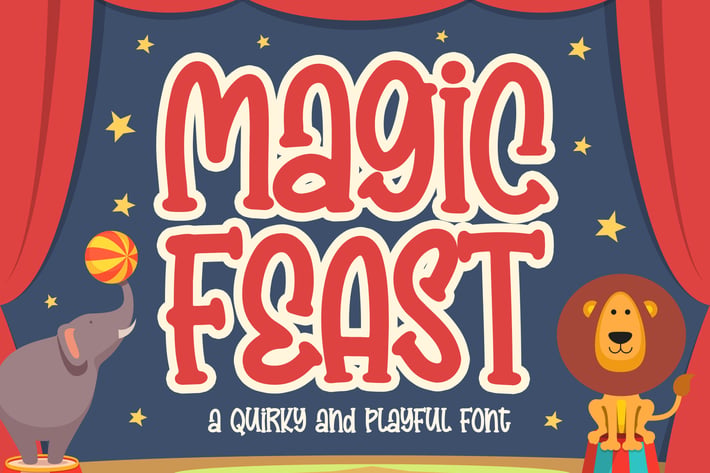
Magic Feast a Quirky and Playful Font
Introducing of our new product the name is Magic Feast a Quirky and Playful Font, Magic Feast inspired by Bouncy quirky style with a fun theme very good for Logotype, kids poster, flyer, childrenbook, cartoon, comic etc